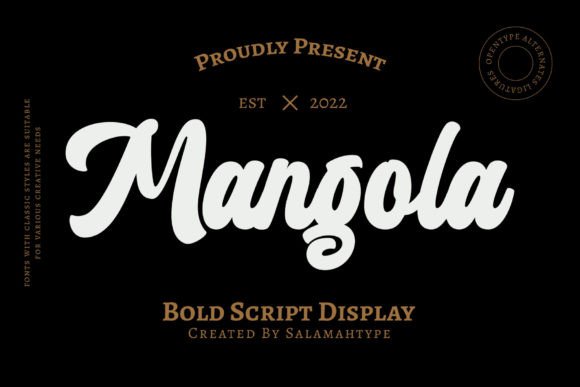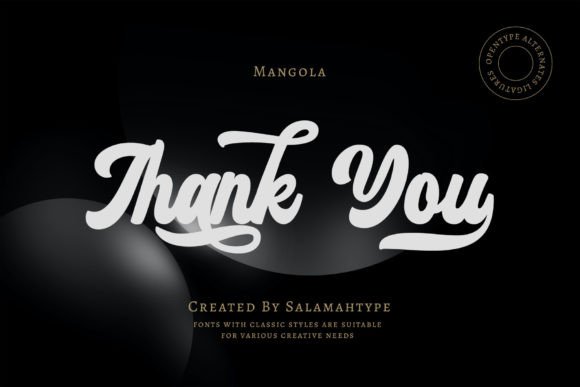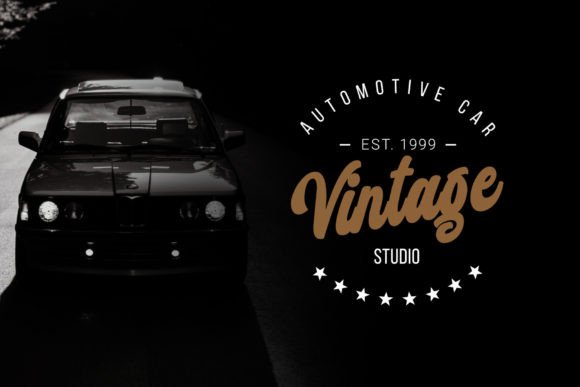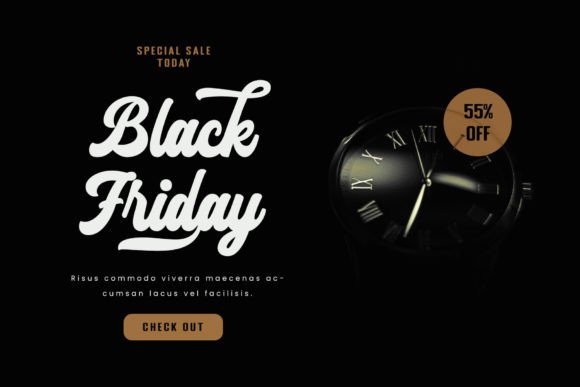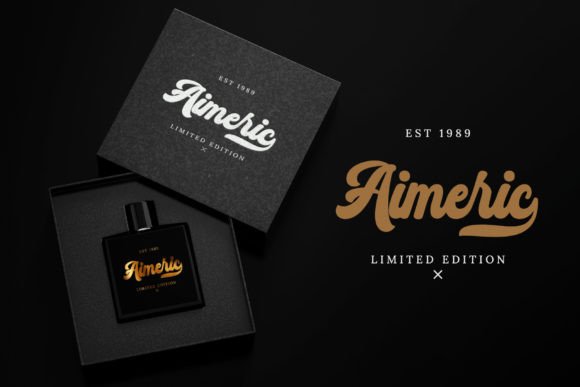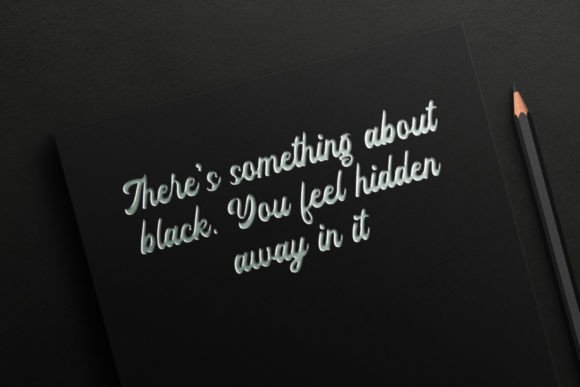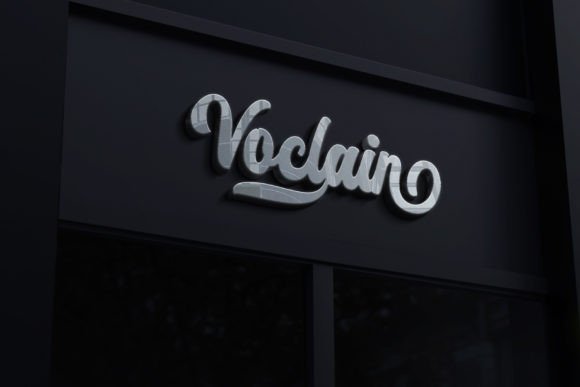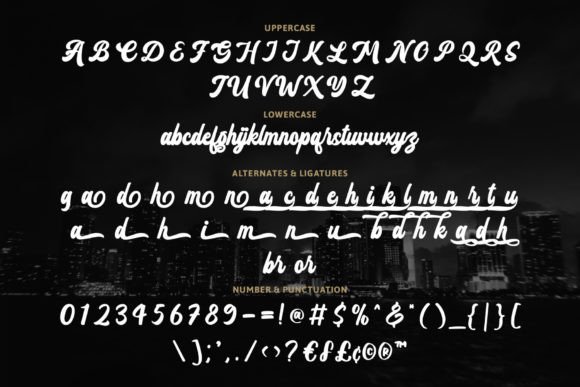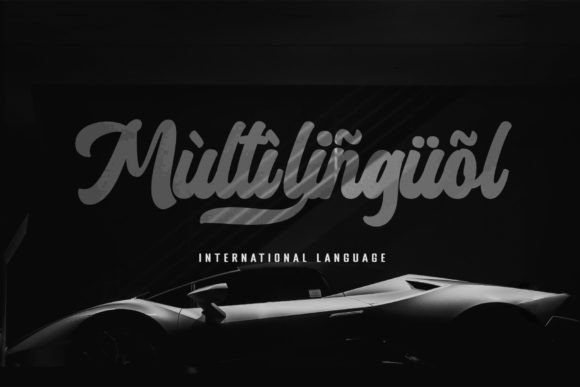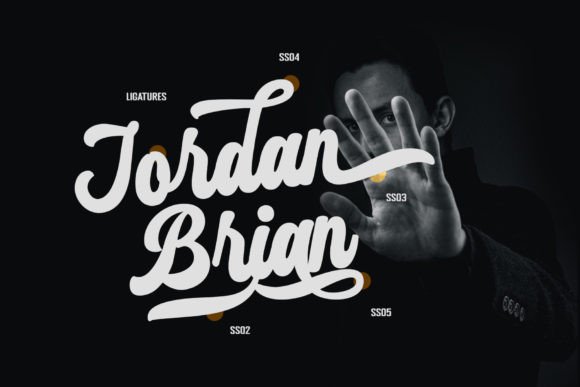
Mangola Font
Mangola Handwritten Font – Cool and Bold Typeface
The Mangola Handwritten Font is a bold and stylish script typeface created to add personality and strength to your designs. With its smooth handwritten strokes and eye-catching flow, it provides the perfect balance between elegance and boldness. Whether you’re designing wedding invitations, business cards, or logos, this font ensures your work feels professional and creative.
A Bold Script with Handwritten Charm
The Mangola Handwritten Font blends bold strokes with natural handwritten curves, giving your text a dynamic yet polished look. Its unique style makes it versatile, while its clarity ensures that it remains easy to read. Because of this, it adapts seamlessly to a wide range of design needs.
One of the most popular uses of the Mangola Handwritten Font is in wedding stationery. Invitations, thank-you cards, and greeting cards shine with its elegant bold strokes. At the same time, it works beautifully for quotes, posters, and business cards, where a personal handwritten feel adds an authentic touch.
The Mangola Handwritten Font adapts well across many applications. From branding and product packaging to digital graphics and event signage, it delivers a handwritten charm that feels stylish and bold. Its versatility makes it an excellent choice for both print and online designs.
Why Designers Love Mangola Font
Designers love the Mangola HandwrittenFont because it combines bold energy with handwritten elegance. Its strong strokes make it eye-catching, while its balance ensures usability in professional contexts. This mix of style and practicality makes it a must-have font.
In summary, the Mangola HandwrittenFont is a bold, cool, and versatile script typeface. With its smooth handwritten strokes, quick installation, and broad usability, it is perfect for wedding invitations, greeting cards, logos, and branding. Don’t miss the chance to download Mangola HandwrittenFont and bring bold elegance to your next design project.